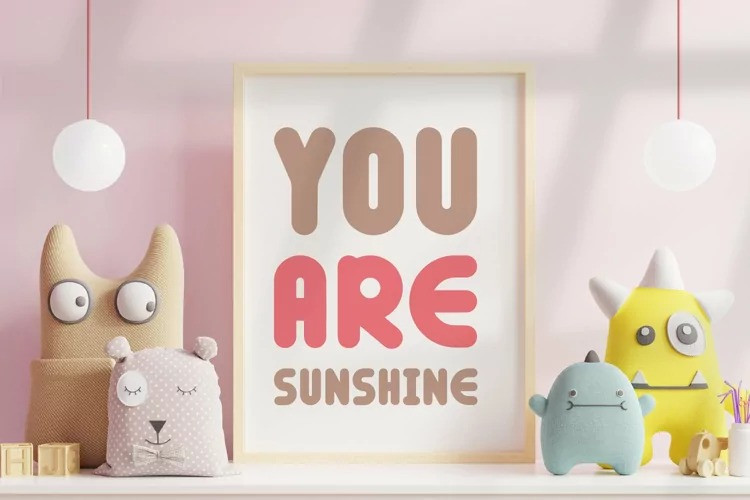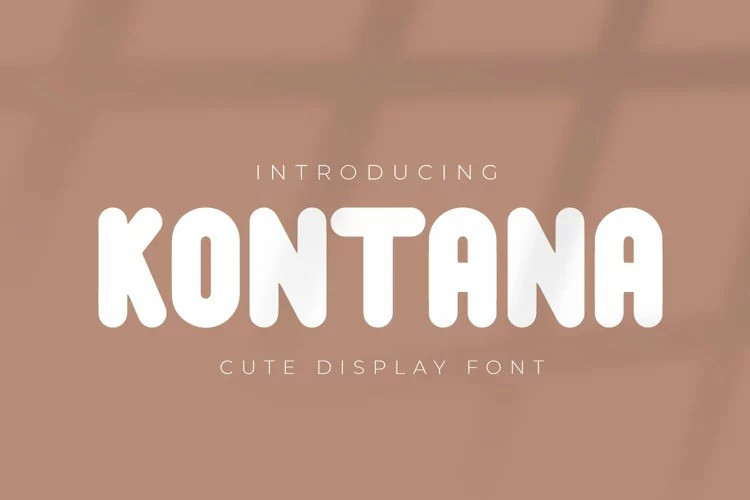
Kontana Font
Kontana Display Font is a cute and quirky display font that fits perfectly into anything. Its casual charm makes it look very down to earth, easy to read and, in the end, very versatile.